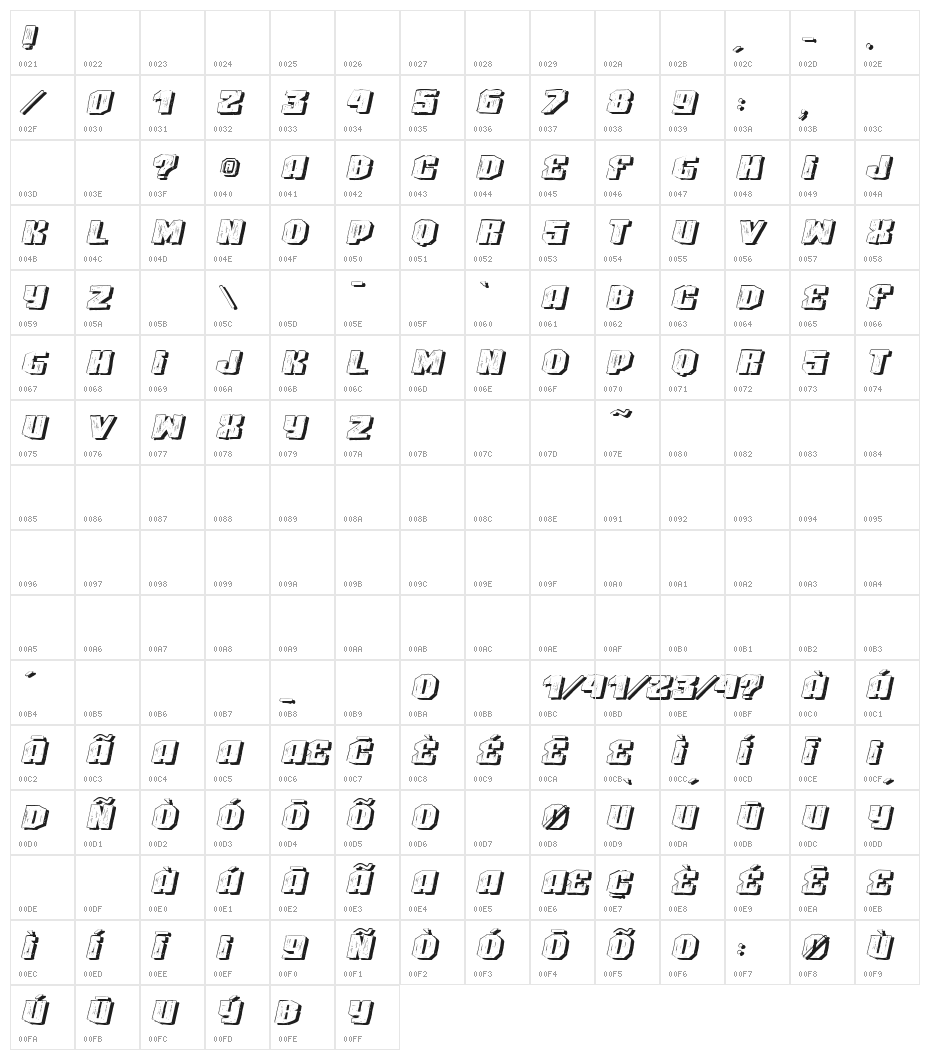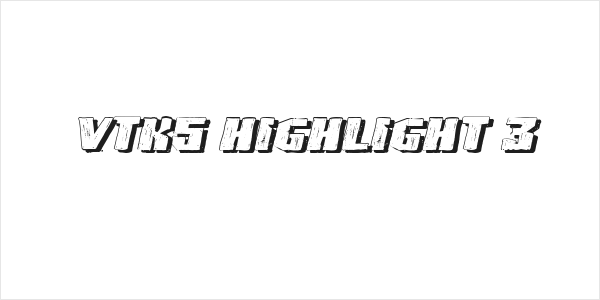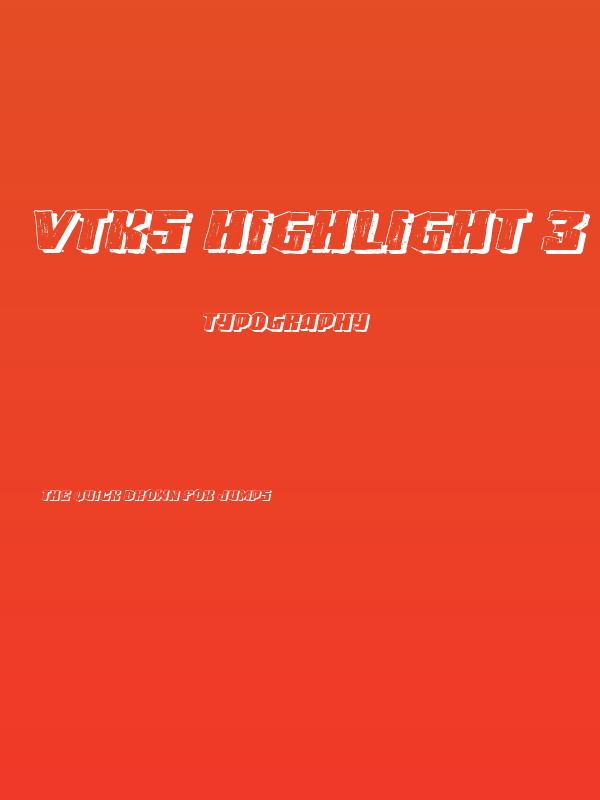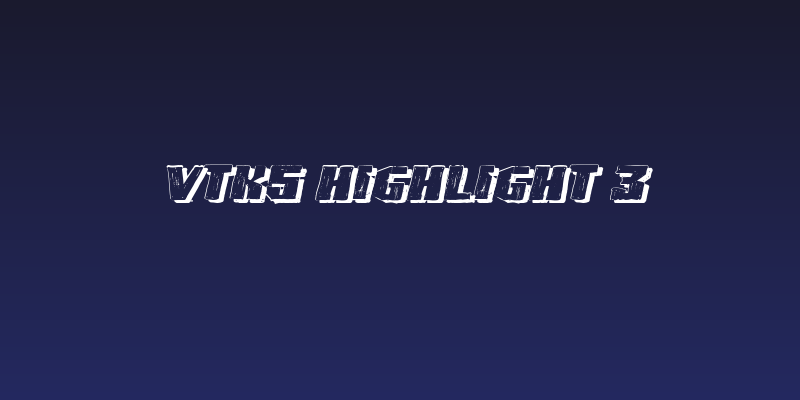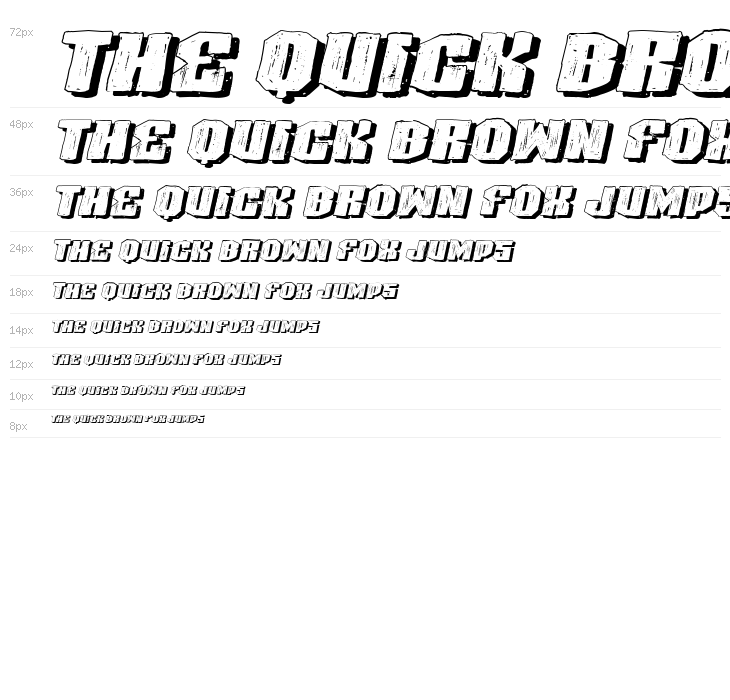
VTKS HIGHLIGHT 3 Font
This font features a bold, three-dimensional style with a distressed texture, giving it a rugged and dynamic appearance. The characters are blocky and angular, with a shadow effect that adds depth and a sense of movement. The distressed texture adds a gritty, urban feel, making it stand out in designs that require a strong visual impact. The uppercase letters are prominent, and the numbers and special characters maintain the same bold style, ensuring consistency across all text elements.
| Proposed Projects | Ideal for posters, album covers, video game graphics, and any project needing a bold, eye-catching typeface. |